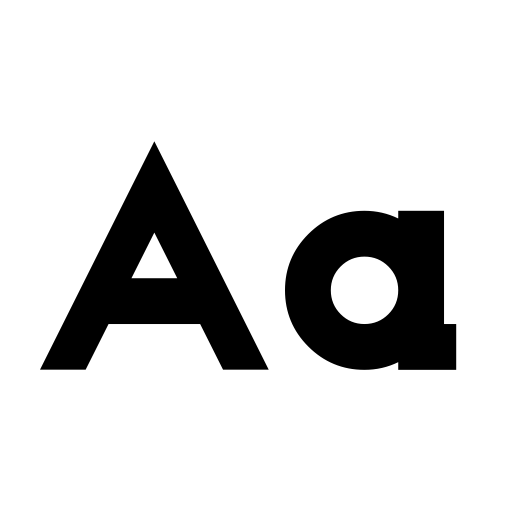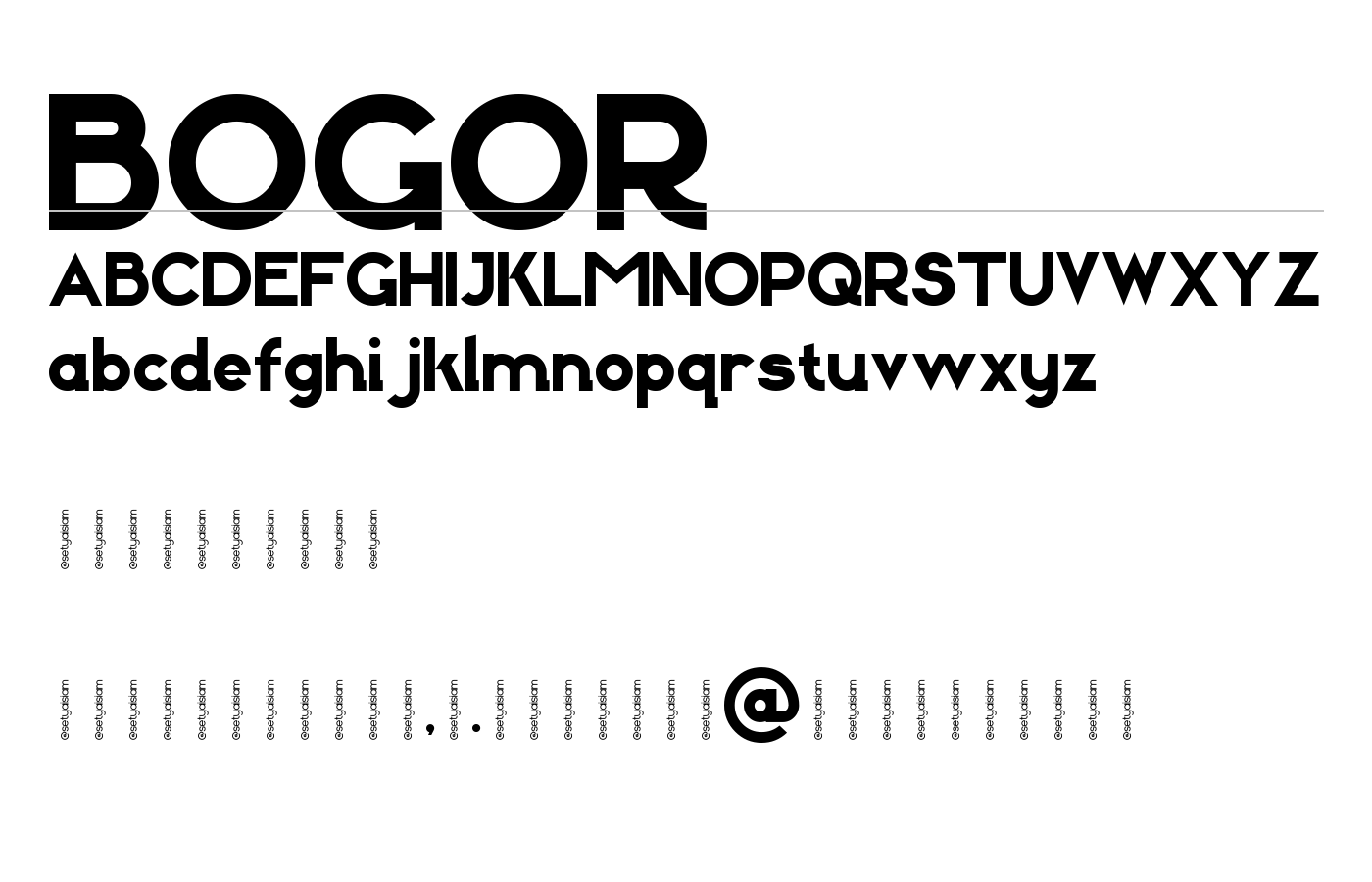
Bogor is a bold, geometric sans serif font characterized by its clean, modern lines and strong presence. With its wide, circular letterforms and single-story lowercase letters, it conveys a contemporary and confident feel, making it ideal for striking headlines, logos, and branding that require a clear and impactful visual identity. Its balanced proportions and uniform stroke weight ensure readability and a polished look across both print and digital media.
BOGOR Font
About BOGOR Font